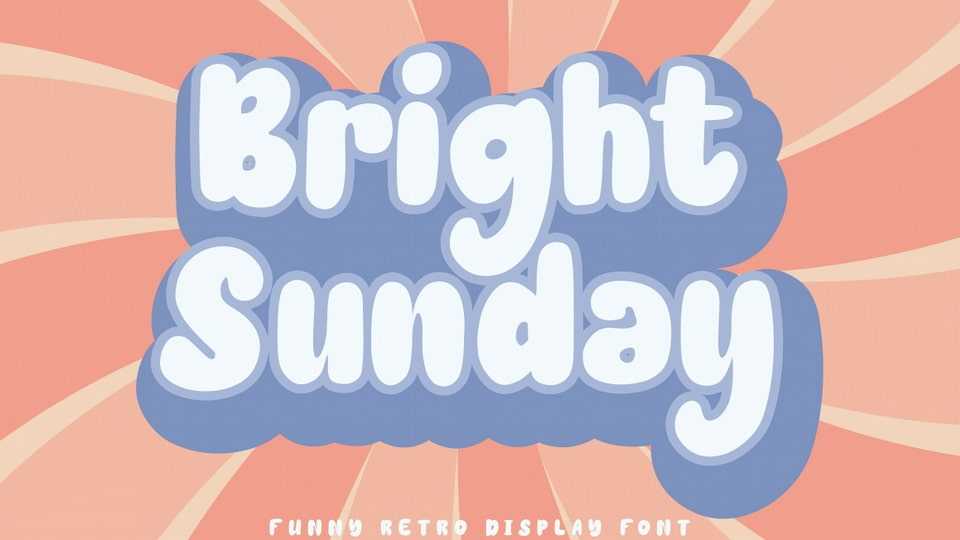
Download Bright Sunday font, a fun retro handwritten typeface. Friendly and cool, Bright Sunday font is a great addition to your font’s library as it has the potential to enhance any creation.
Designer: Rissyletter Studio